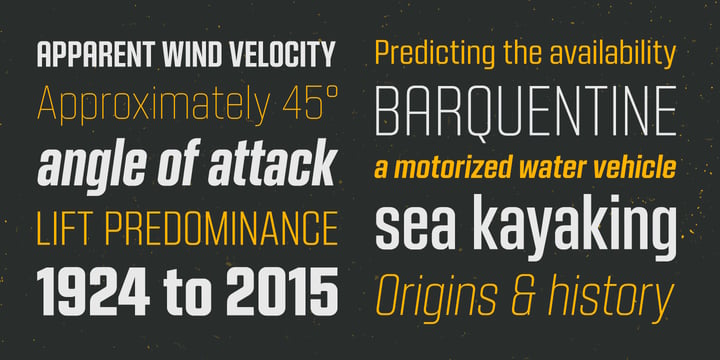
Kuunari
The Kuunari Font Family was designed by and published by Melvastype. Kuunari contains 42 styles and family package options. More about this family
Kuunari is structured square sans type family of 42 fonts. It has three widths and 7 weights in both upright and italic versions. The base form is a round cornered rectangle and this form constructs the glyphs throughout the fonts. Kuunari is a straightforward sans serif. It doesn't make any fuss about itself, it just does the job proudly and with confidence. It is very versatile; it can be used for titles and logos to make a statement or more delicately for body text and lead paragraphs. All in all you can achieve diverse and rich typography with the Kuunari type family.
Kuunari
“I have always been interested in various forms of hand lettering, graffiti, sign painting and calligraphy,” Mika Melvas said in his Creative Characters interview. “As a kid I was very interested in graffiti. I drew and sketched it in my notebooks, and in art class my favorite tasks were always the ones that included some typographical elements. At some point I found calligraphy. There was something in calligraphy that fascinated me a lot. It is hard and demanding and needs regular training. And it is so pure; you can’t hide your mistakes or take short cuts. It is just forms and whitespace. I’m not a master calligrapher by any means but I like to do it and it makes me a better type designer and lettering artist.” For Mika, type design was a hobby long before it became the primary way he made his living. He began his career as an art director and graphic designer in advertising agencies and experimented with type on the side. Following his passion, Mika worked hard to guide his career towards becoming a full-time type designer and lettering artist. “I worked on my calligraphy and lettering a lot,” he said, “ and practiced vectorizing them. After a long period of hard training I was able to resign from my art director’s post and start my own foundry. I think it’s good to have knowledge and experience of graphic design — it has worked for me at least. It means that you have an understanding how your clients would use your fonts and what kind of expectations they have.” Since he first began selling his designs on MyFonts in 2011, the self-taught type designer has released over a dozen families. His library spans a typographic range from an extra bold slab serif, Ringa, to his more signature style of playful brush script fonts like Paintlay and Ahkio. “I think hand-sketching is a very important thing – at least for me — especially when you are doing a script font. You can’t beat the flow and rhythm one achieves with just pen and paper. I think you can focus better on the bigger picture; composition, flow and style, when doing things with just pen and paper. I easily rush to fine tune the details too early when using just a computer. Type design is a combination of creativity and engineering and that is very interesting to me. You get the best of both worlds.” For more on Mika, check out his website and follow him on Twitter and Instagram.The Premium foundry page can be viewed Here.